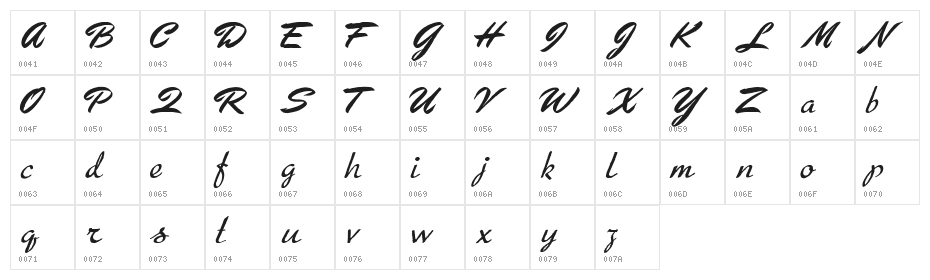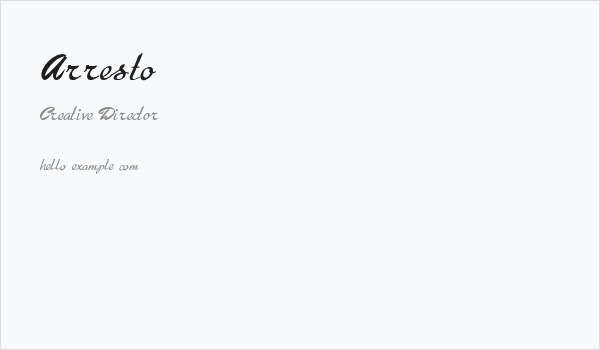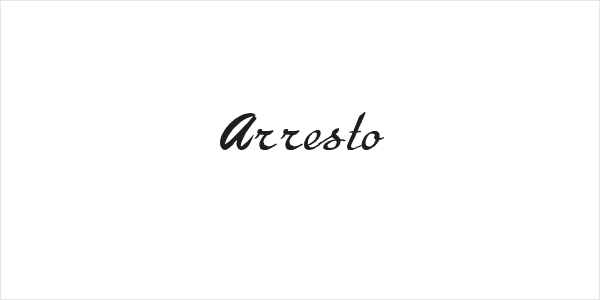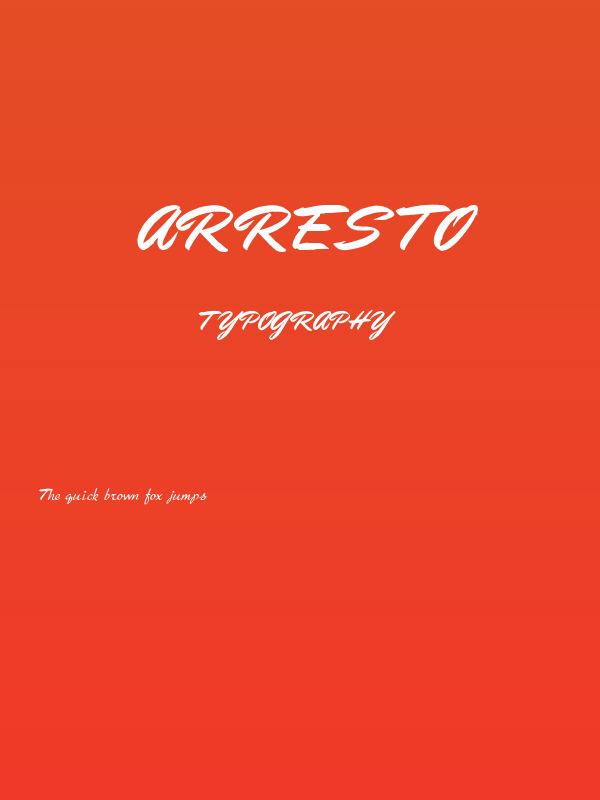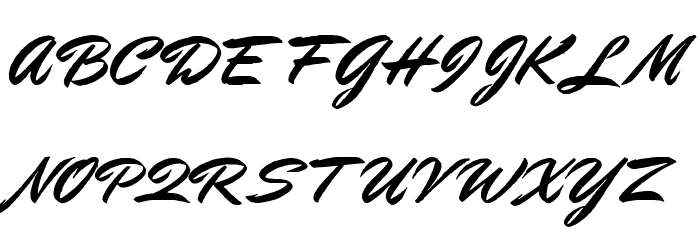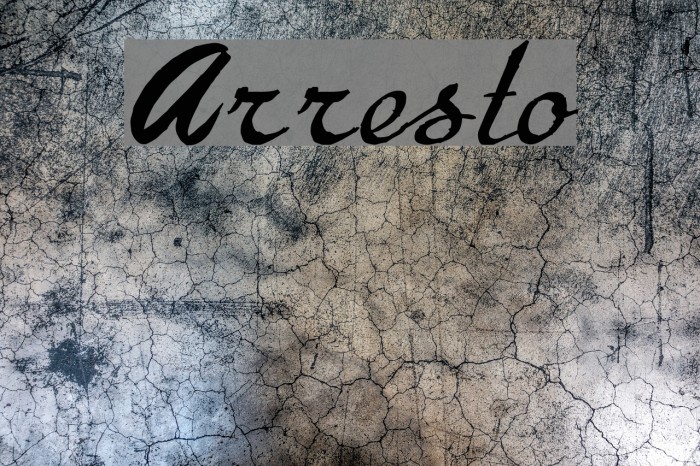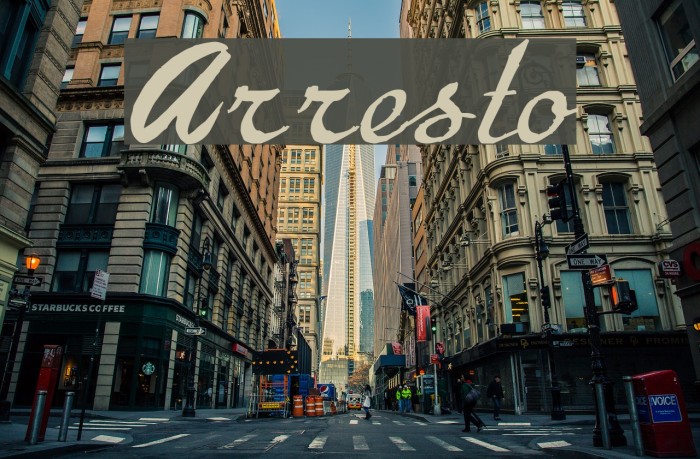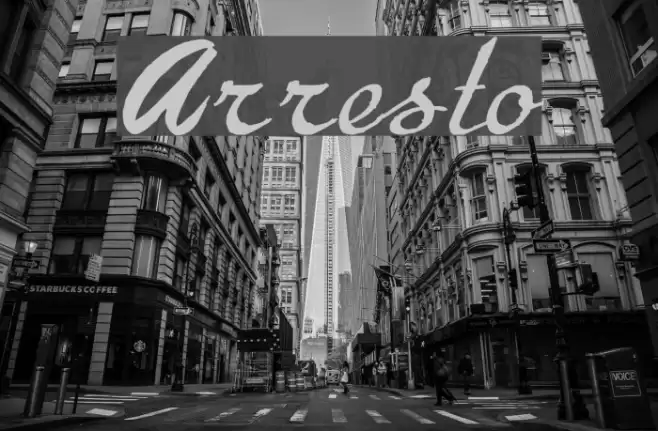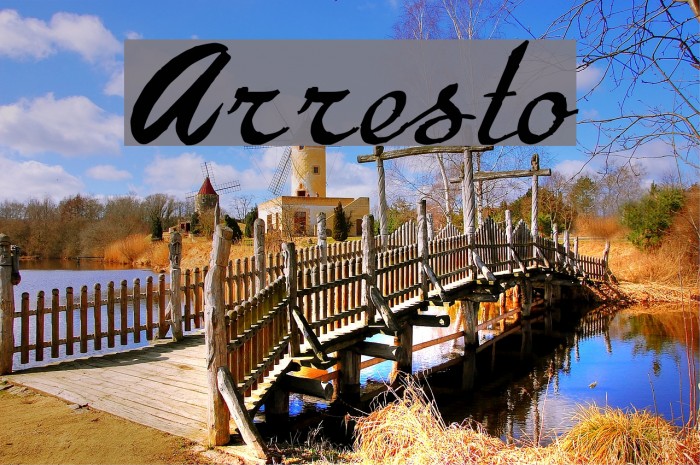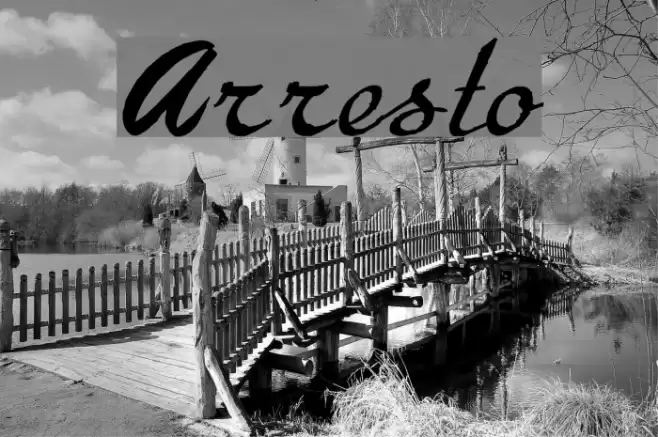
Arresto Font
Arresto Description
This font exudes a dynamic and energetic style, characterized by its bold and flowing script. The letters are interconnected, creating a sense of movement and fluidity. The strokes are thick and expressive, with a slight slant that adds to its lively appearance. This font captures the essence of handwritten calligraphy with a modern twist, making it suitable for projects that require a personal and artistic touch. The uppercase and lowercase letters maintain a consistent style, ensuring readability while adding a touch of elegance.
| Proposed Projects | Ideal for branding, invitations, greeting cards, and artistic projects that require a personal touch. |